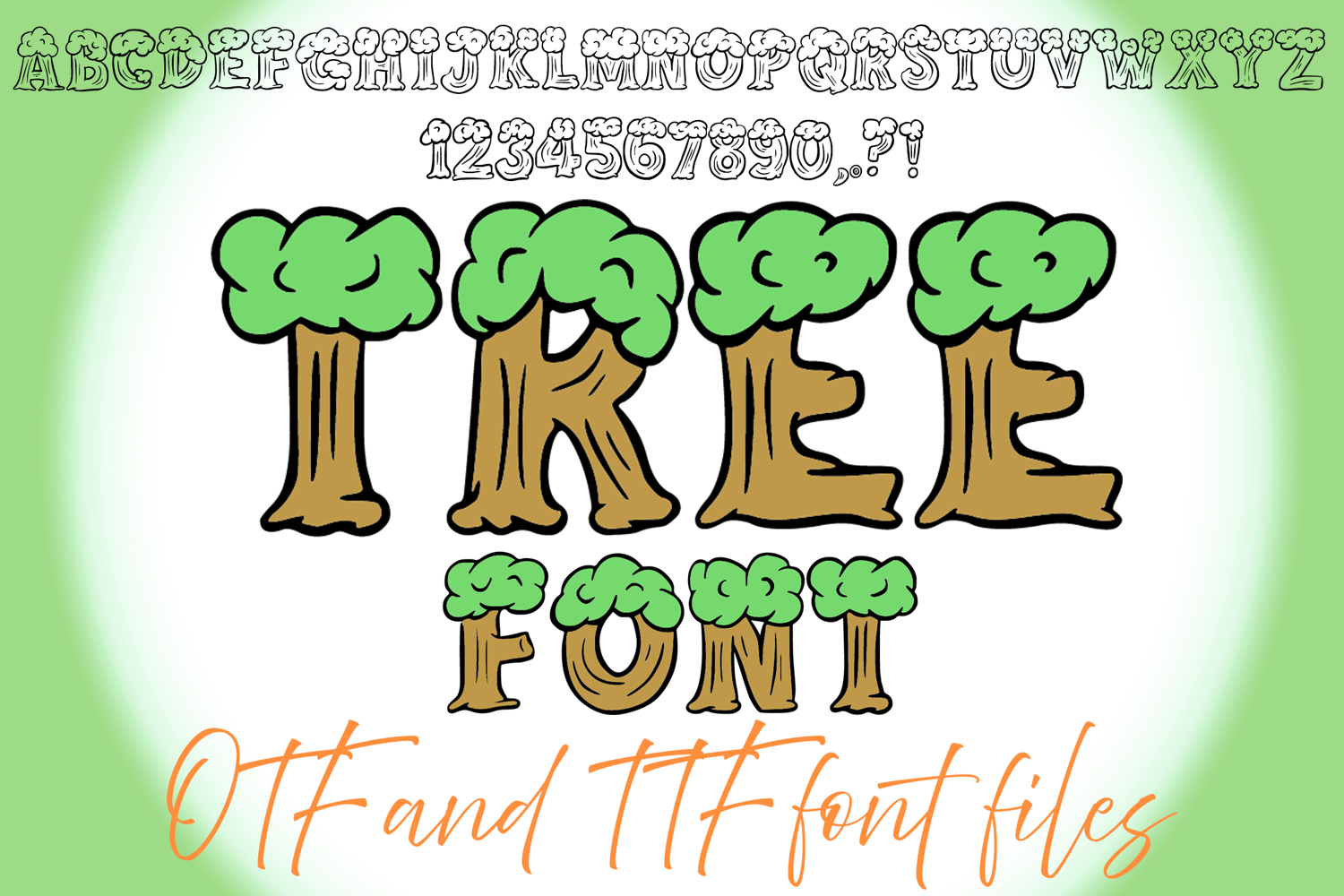
Tree Log Typeface Lettering ABC Text Font OTF Illustration
A fun cartoon style font where you can create your own words and colour them to your vision!